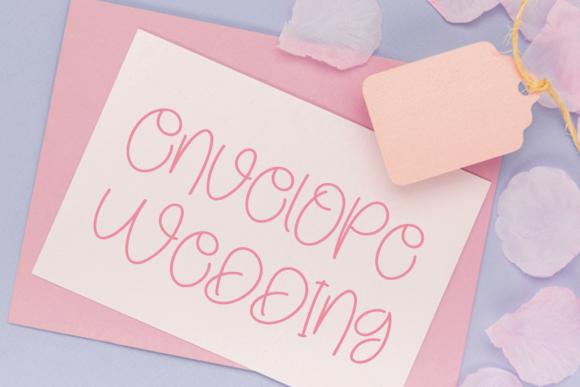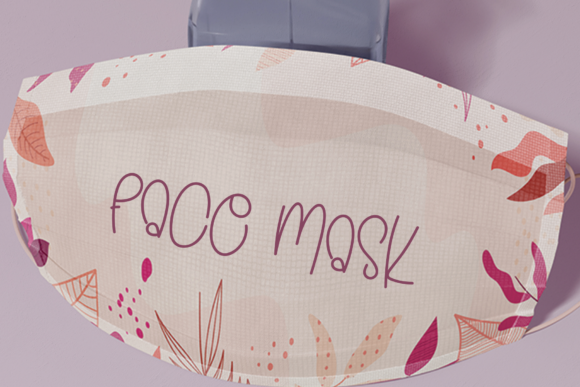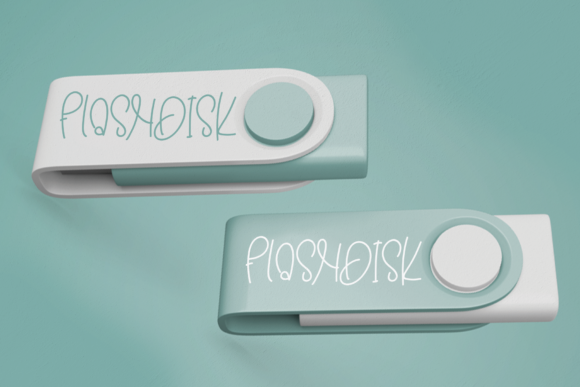
Introduction to Disney for Handcraft Font
Disney for Handcraft is a cute, thin lettered and whimsical handwritten font.
Why Choose Disney for Handcraft Font?
Disney for Handcraft Font offers exceptional quality and versatility, making it a valuable addition to your design toolkit. Whether you’re creating for personal projects or commercial use, Disney for Handcraft Font delivers professional results.